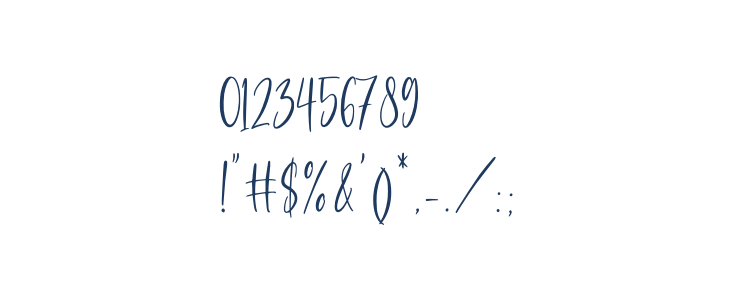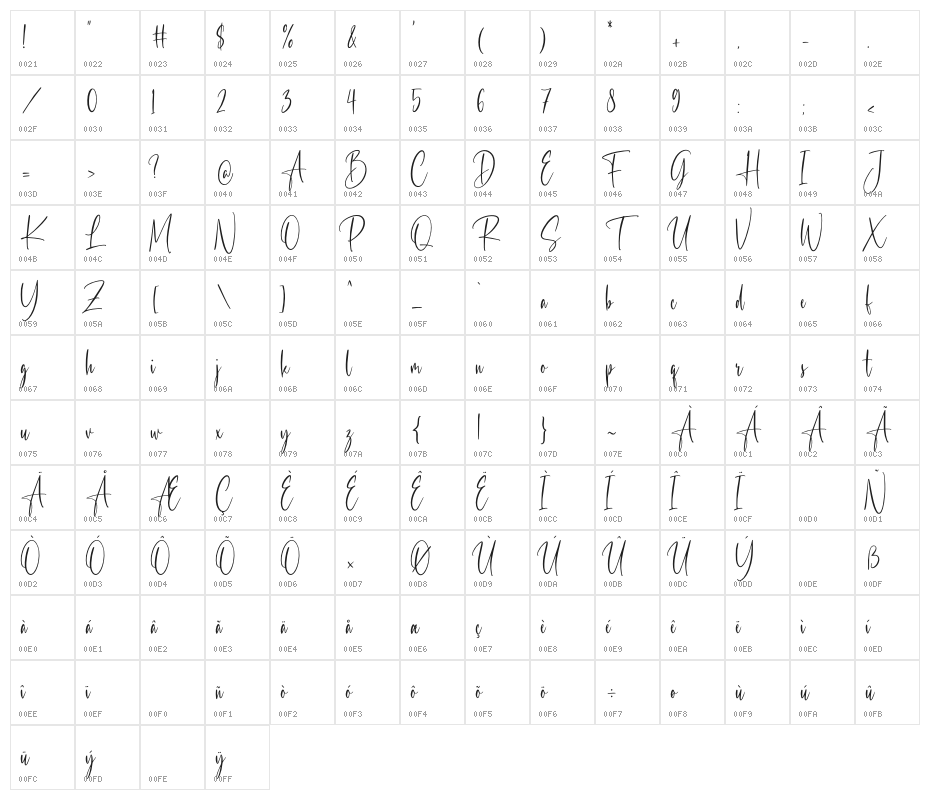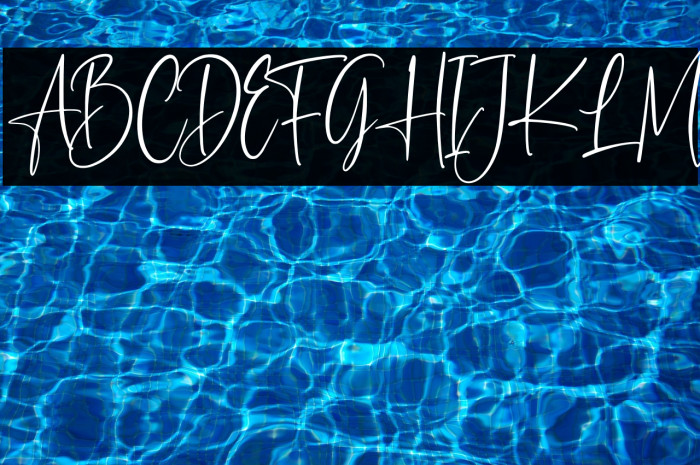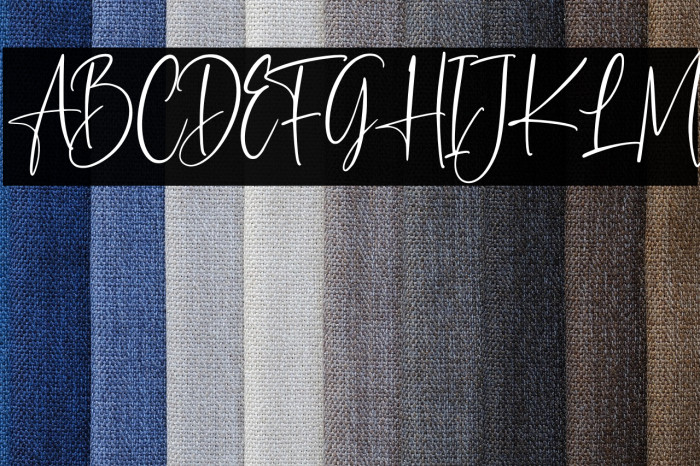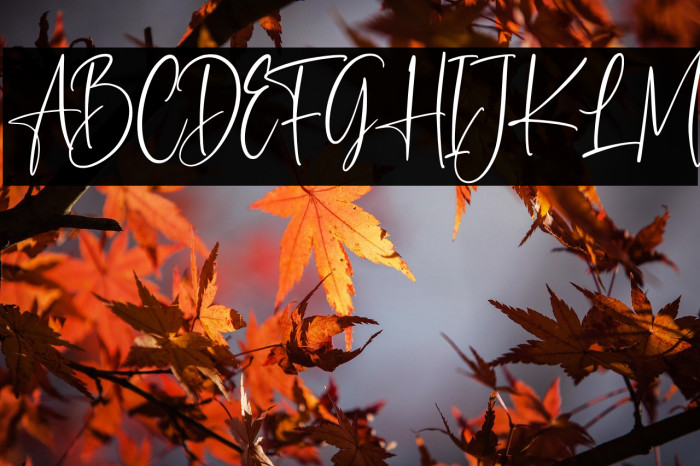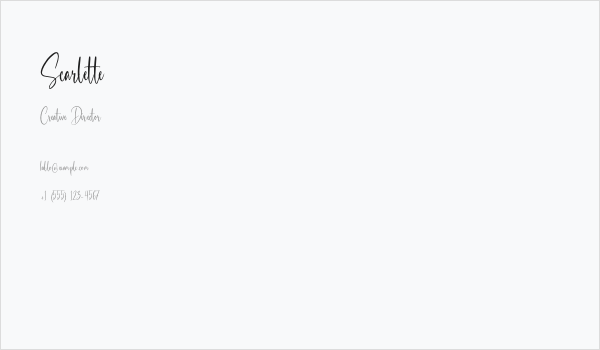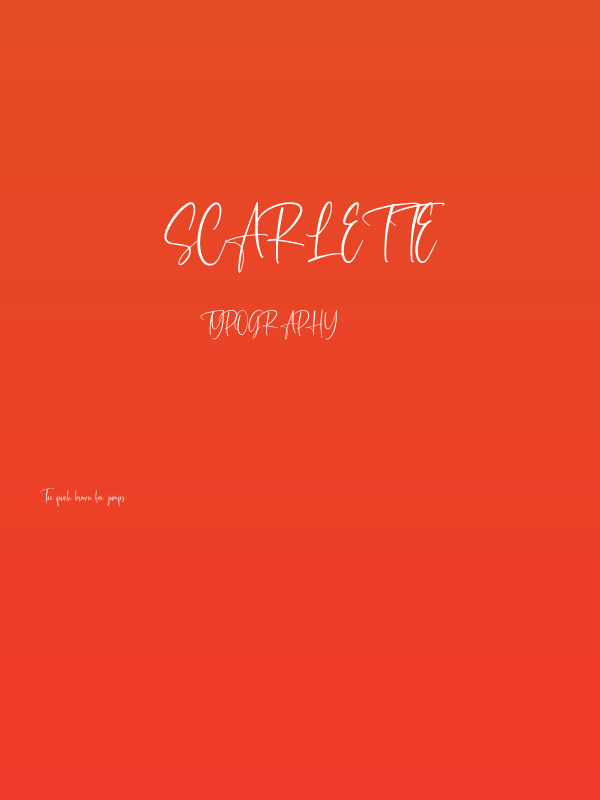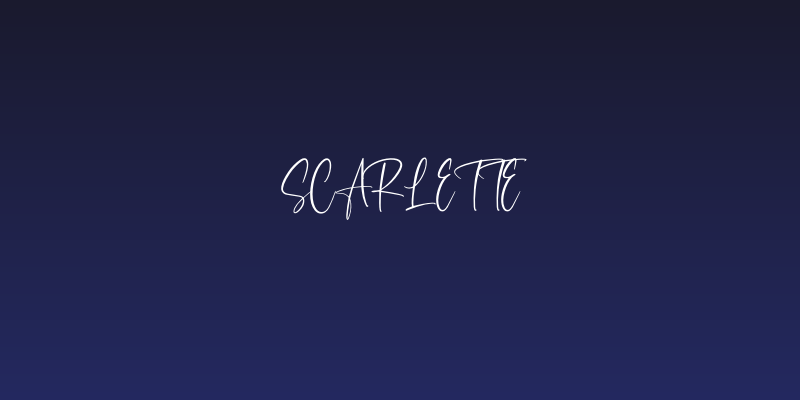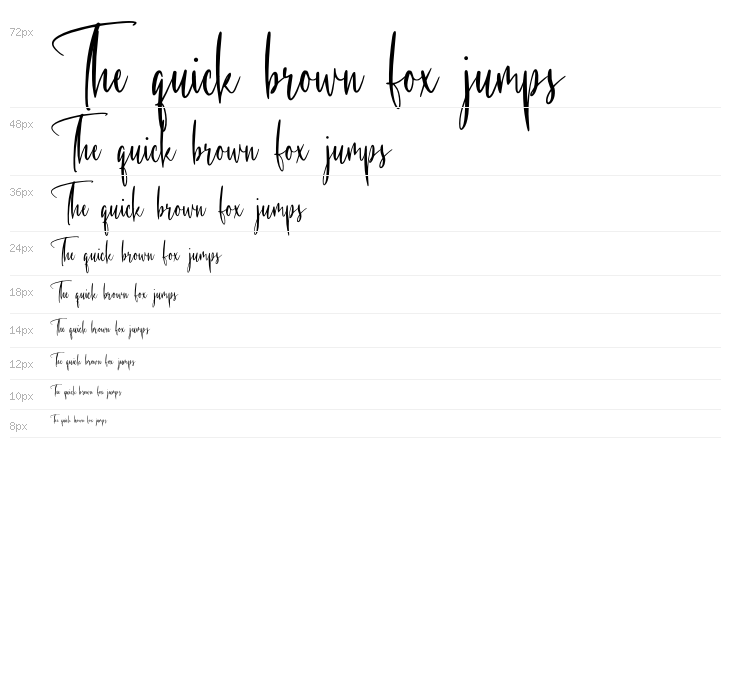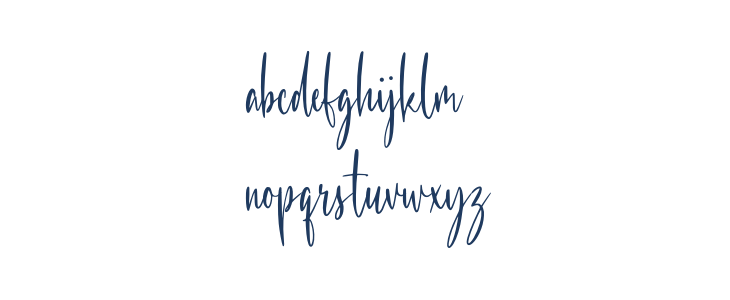
Scarlette Font
Scarlette Description
This font features an elegant and flowing script style, characterized by its smooth, cursive strokes and a sense of fluidity. The uppercase letters are tall and slender, with a graceful, airy quality that gives them a sophisticated appearance. The lowercase letters maintain a consistent flow, with some letters featuring loops and swashes that enhance the overall decorative feel. The numerals are designed to match the script style, offering a cohesive look across all characters. Special characters are included, maintaining the same elegant and stylish design. This font is ideal for projects that require a touch of elegance and sophistication, such as wedding invitations, branding, and high-end product packaging.
| Overall Style | Elegant, Decorative |
| Proposed Projects | Wedding invitations, branding, high-end product packaging, elegant stationery. |